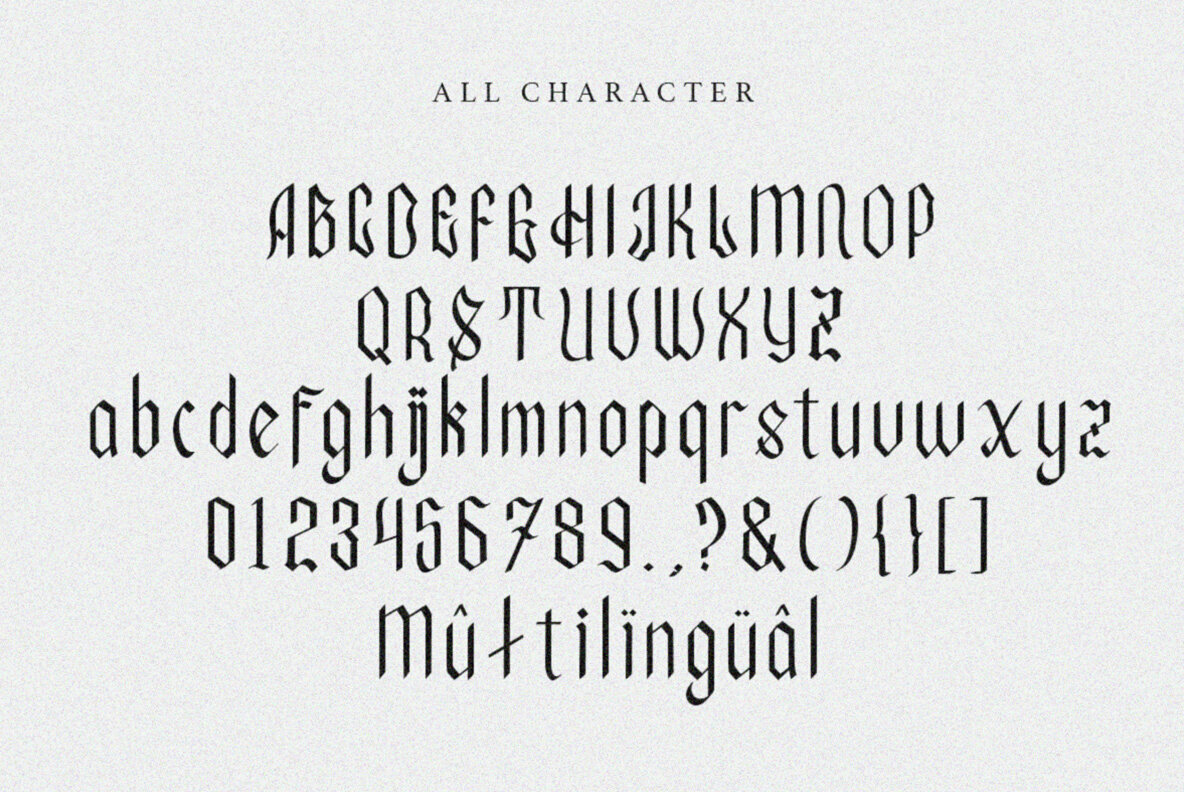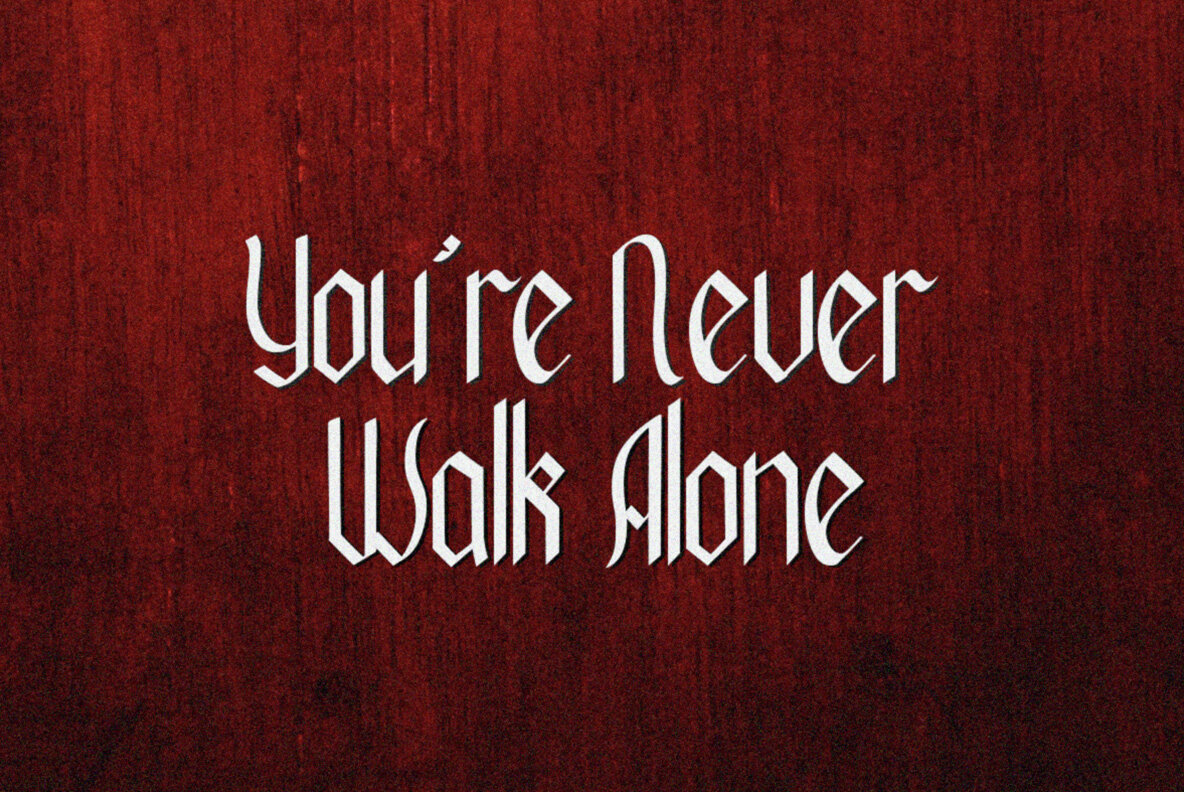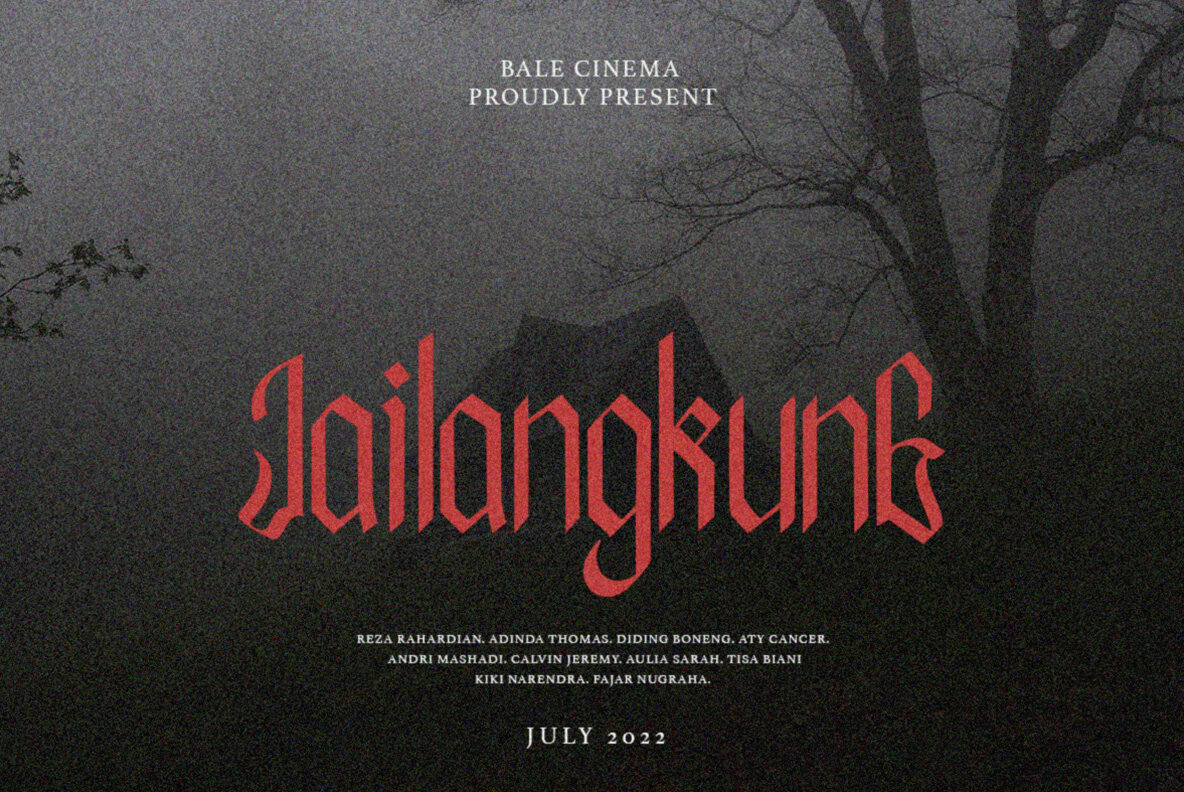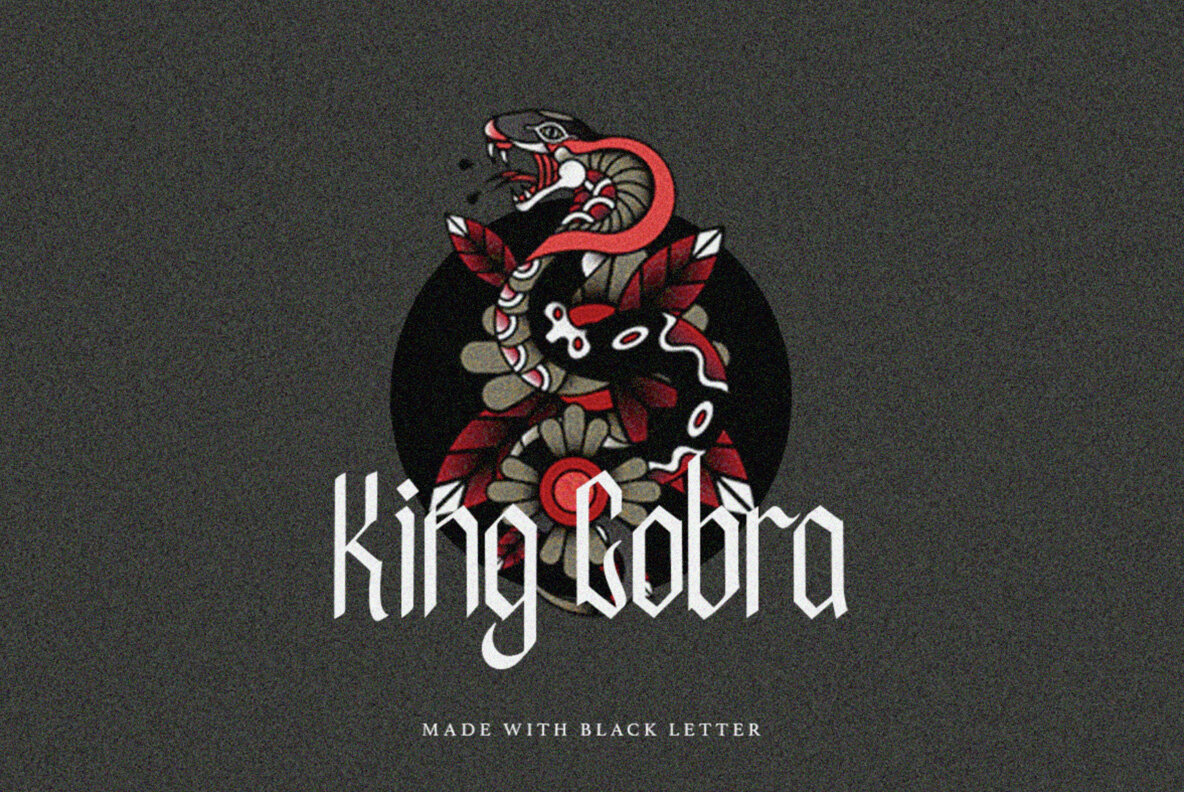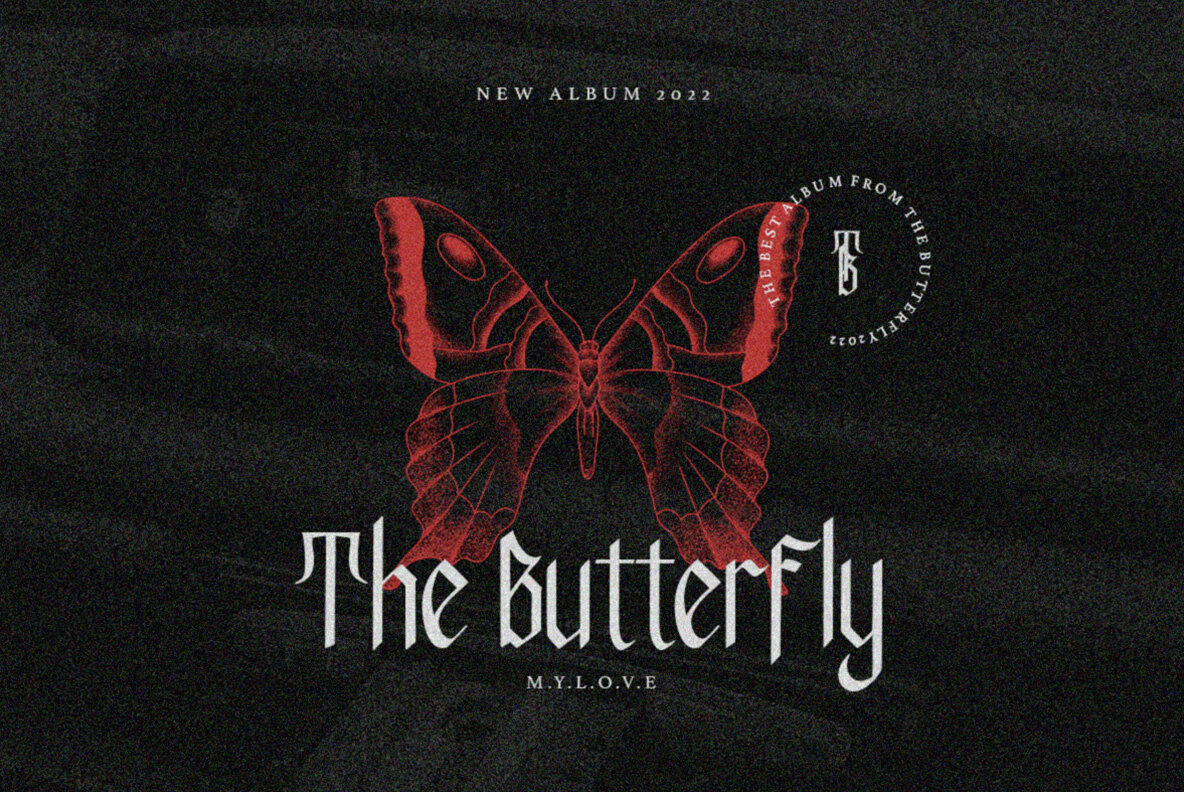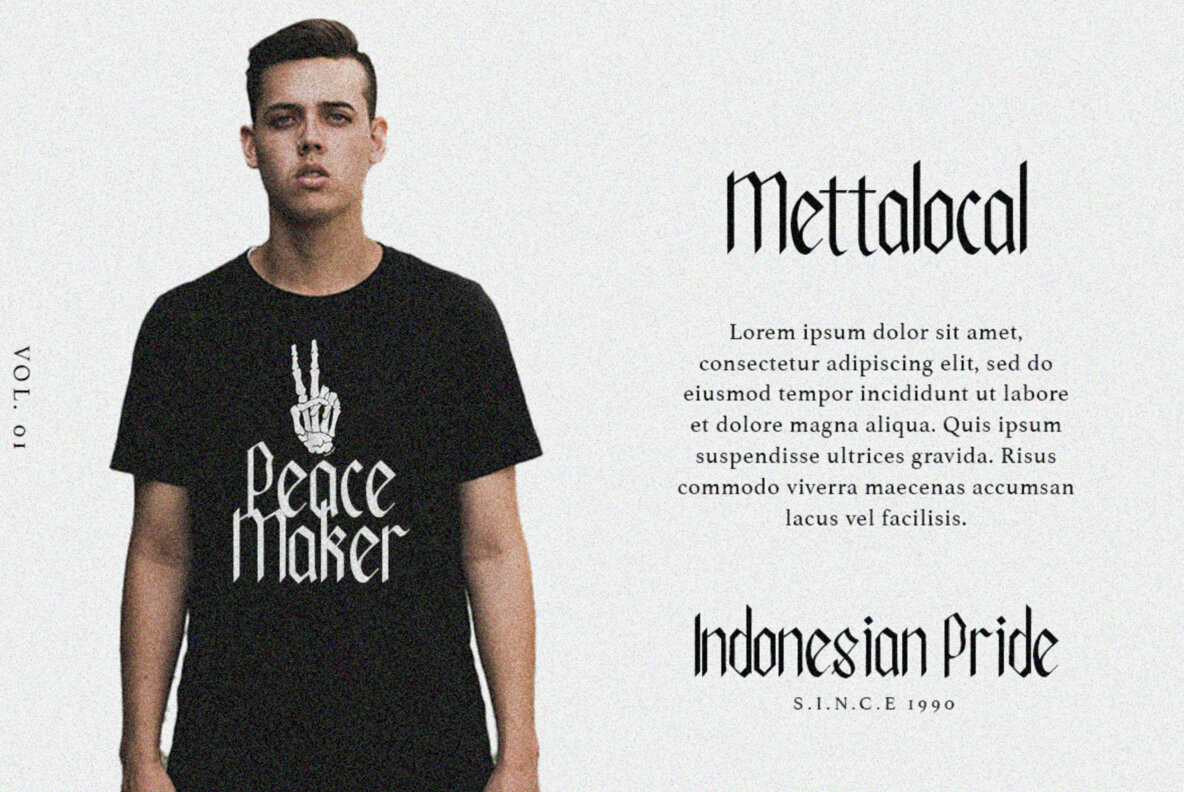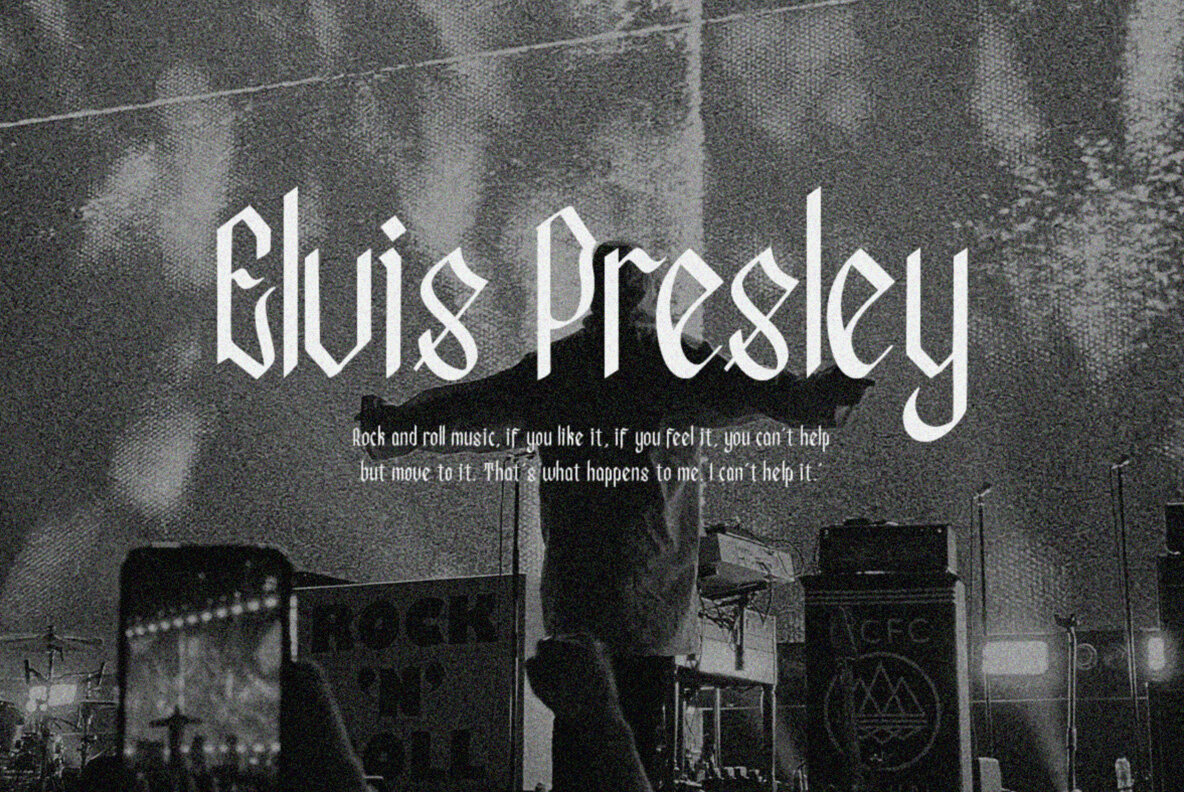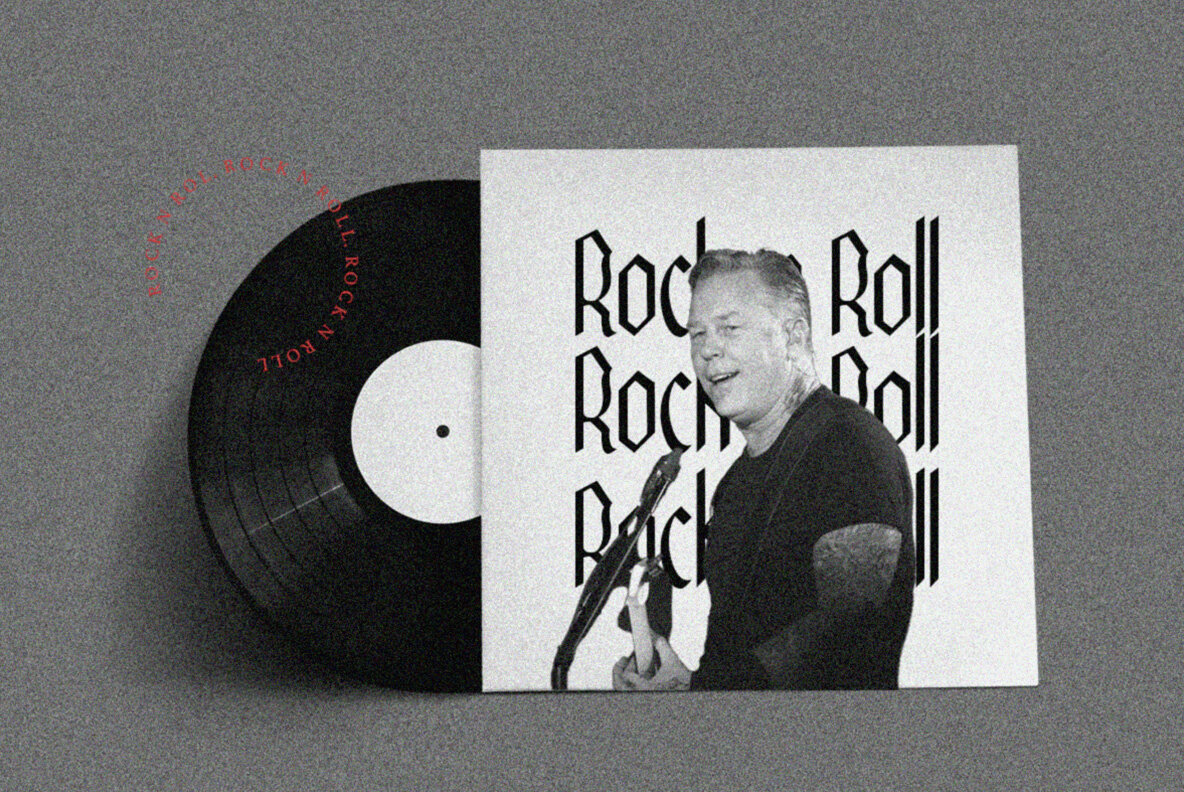
Black Stock Font
Black Stock Regular
Black Stock is a simple and minimalist Blackletter font that you can use for any purpose and designs. With readable alphabet, this font will suitable for quotes, album cover, or even movie poster. This font also support multi language.